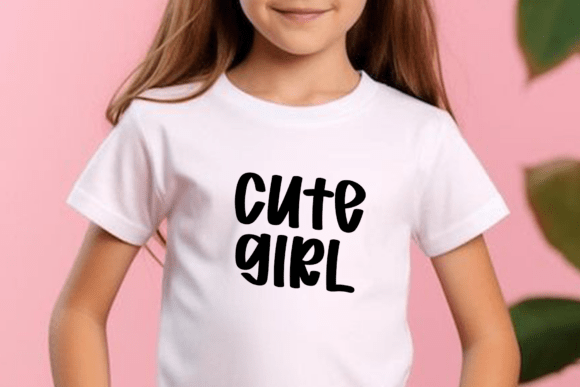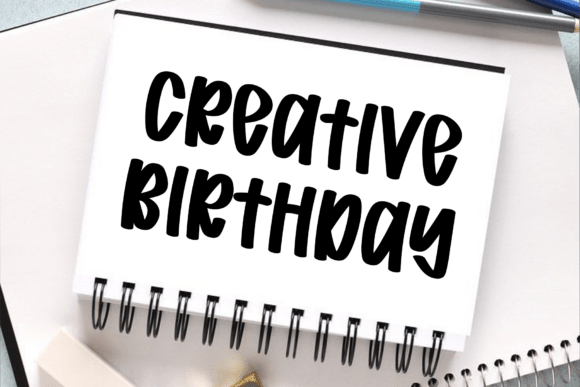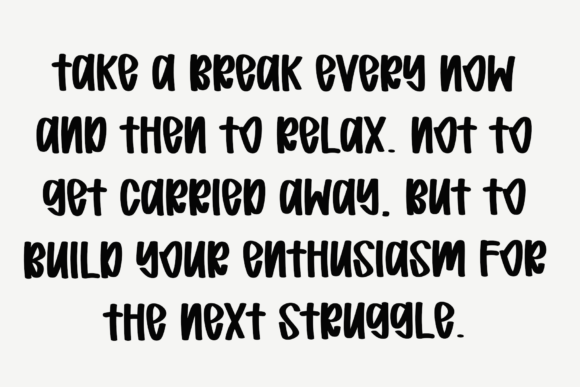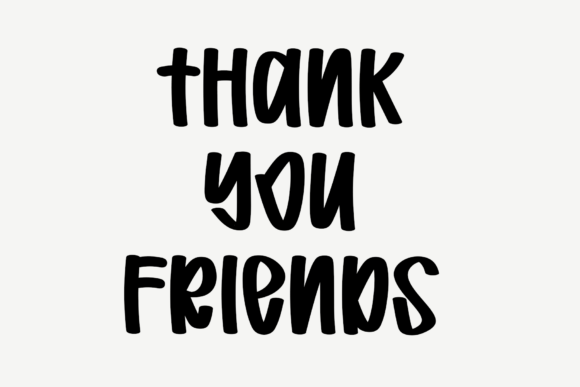
Discover the Charm of Baby Preppy Font
You know that moment when a project just comes together, and you can’t help but feel a sense of pride and accomplishment? It’s the perfect blend of creativity and execution, and it’s all thanks to the right tools and inspiration. For designers, finding that perfect font can make all the difference in elevating a project from good to great.
That’s where the Baby Preppy Font comes in – a minimal and neat font that’s designed to add a touch of sophistication to any project. With its clean lines and simple design, it’s the perfect choice for anyone looking to create a professional and polished look. Whether you’re working on a branding project, a website, or a social media campaign, the Baby Preppy Font is a valuable addition to your design toolkit.
Baby Preppy Font Key Features
- Font Style: Casual, Cursive Script
- Unique Characteristics: Handwritten, whimsical, and playful design, perfect for baby-related products, children’s books, and nursery decor
Baby Preppy Font Review
Overall, I think the Baby Preppy Font has some great qualities that make it a standout choice for designers. ✨ One of its best features is its high level of customizability. The font is available in a range of weights and styles, making it easy to find the perfect fit for your project. ✨ I also appreciate how the font’s playful, cursive script adds a touch of whimsy and elegance to any design.
- High level of customizability
- Playful, cursive script
- Wide compatibility across various platforms and devices
- May be too playful for some design projects
- Lack of sophistication in its more serious weights
- Some users may find the font’s irregularities distracting
- ⚠️ Not ideal for large blocks of text
Overall, I would recommend the Baby Preppy Font for designers who want to add a touch of playfulness and whimsy to their projects. However, it may not be the best choice for more serious or formal designs.
Use the Baby Preppy Font for creating playful and whimsical designs.
Pair it with pastel colors and cute illustrations for a cohesive look.
Experiment with different font sizes and styles to add visual interest.
Baby shower invitations and decorations
Children’s party invitations and decorations